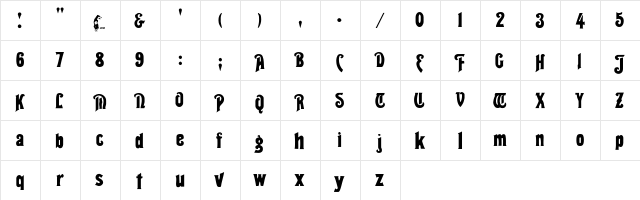
Teton Regular Font Preview
Teton Regular
Teton Regular Font Details
Design Context for Teton Typeface
Teton is a composed and adaptable typeface that performs quietly and consistently across a wide range of design contexts.